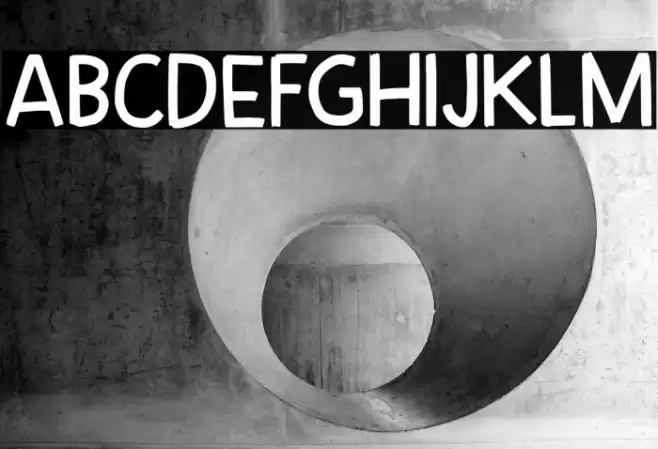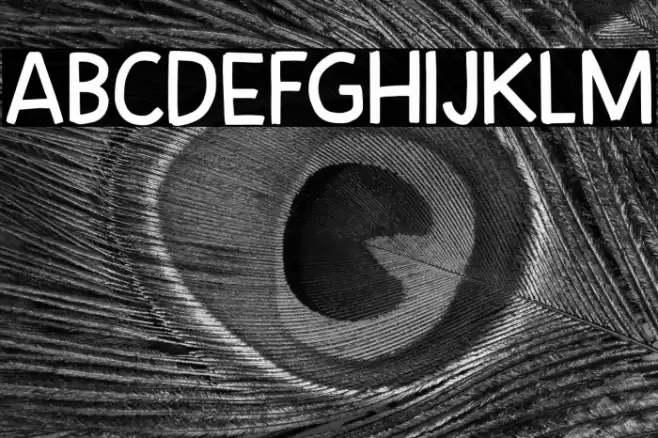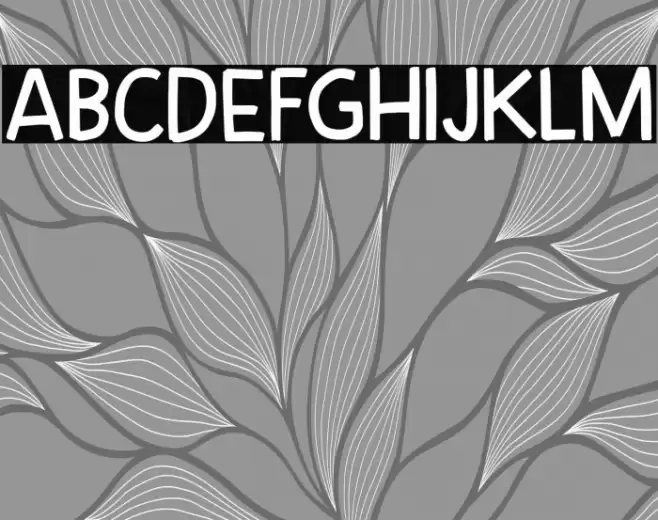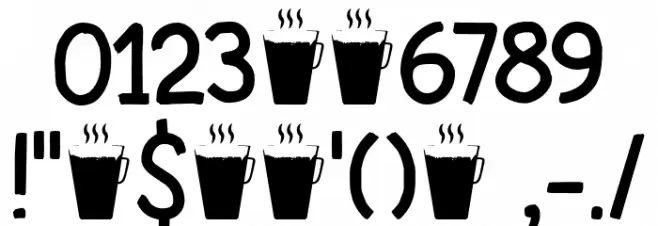
CaffeLungoDEMO-Regular Font
CaffeLungoDEMO-Regular Description
This font features a playful and casual style with rounded edges and a slightly uneven baseline, giving it a hand-drawn appearance. The uppercase letters are bold and prominent, while the lowercase letters maintain a consistent flow with a friendly demeanor. The numerals are clear and easy to read, matching the overall style of the alphabet. Special characters include unique coffee cup icons, adding a whimsical touch. This font is ideal for projects that aim to convey warmth and approachability, such as coffee shop branding or casual event invitations.
A playful, hand-drawn font with rounded edges and unique coffee cup icons from Uncategorized fonts.
- Proposed Projects: Perfect for coffee shop branding, casual invitations, and playful designs.
- Overall Style: Casual
- Use Case: Logos, Invitations, Branding